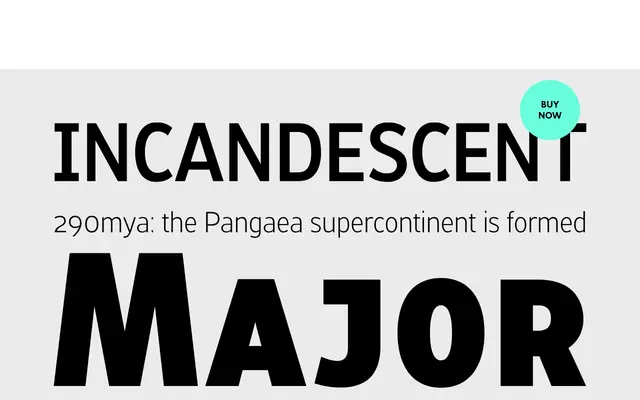
Morpeth
A condensed sans originally drawn for Morpeth Borough's wayfinding system, built for signage and space-constrained typography.
Designed for a municipal wayfinding brief, it carries open counters and a generous x-height that sustain legibility at small sizes and at distance. Six weights are available as OpenType fonts with small caps, discretionary ligatures, four sets of numerals and broad Latin coverage including Central European, Baltic and Turkish. Short descenders and a tight width make it a practical choice for sub-headings and body copy where space is tight.
A condensed sans serif originally designed for a wayfinding system, with open counters and a generous x-height optimised for signage and space-constrained text settings.